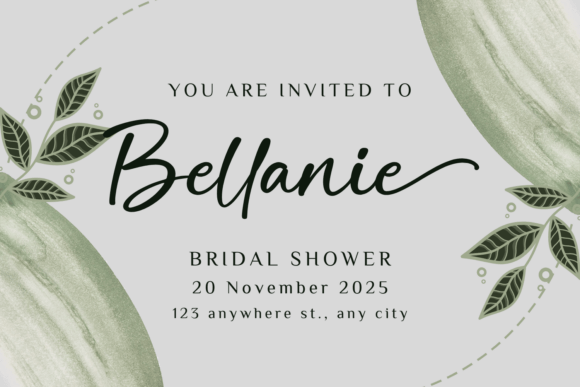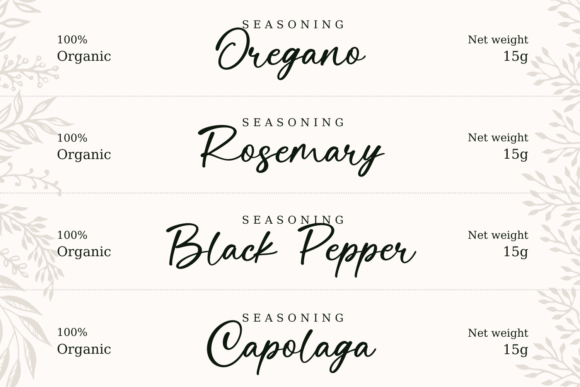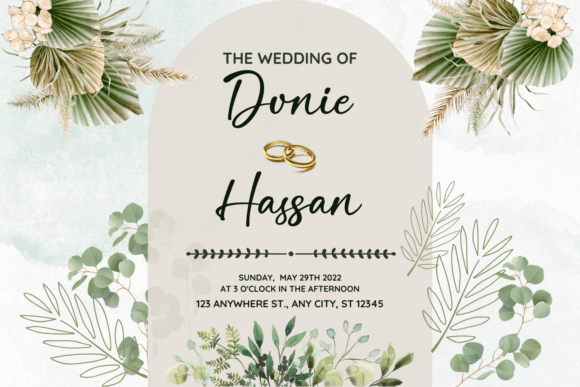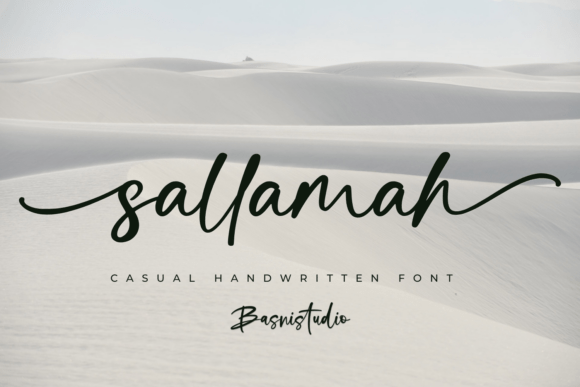
Introduction to Sallamah Font
Looking for a font that brings warmth, personality, and authenticity to your projects.
Sallamah is a beautifully crafted handwritten typeface that adds a natural, personal touch to everything from branding and social media to invitations and packaging Whether you’re building a powerful brand identity or crafting a standout logo, Sallamah gives you the creative edge you need.
Key Features of Sallamah Font
Why Choose Sallamah Font?
Sallamah Font offers exceptional quality and versatility, making it a valuable addition to your design toolkit. Whether you’re creating for personal projects or commercial use, Sallamah Font delivers professional results.